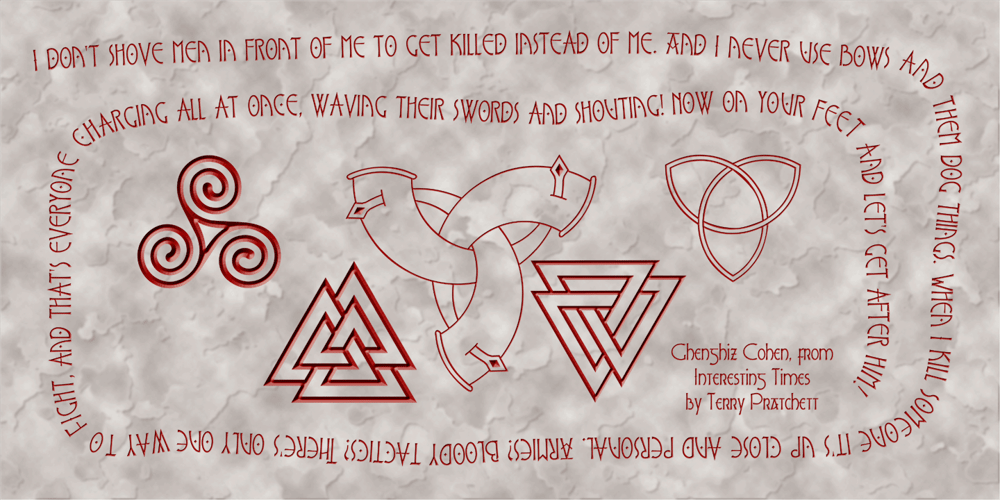
PR Valknut Font Family was designed by Peter Rempel and published by PR Fonts. PR Valknut contains 1 styles and family package options. This font includes the symbols Valknut, Triple spiral, Triquetra, and Horn Triskelion, associated with Odin, and ancient Norse and Celtic cultures. Each of these symbols is presented in outline and solid forms, and in vertically and horizontally mirrored forms. For text, use it with PR-Viking.